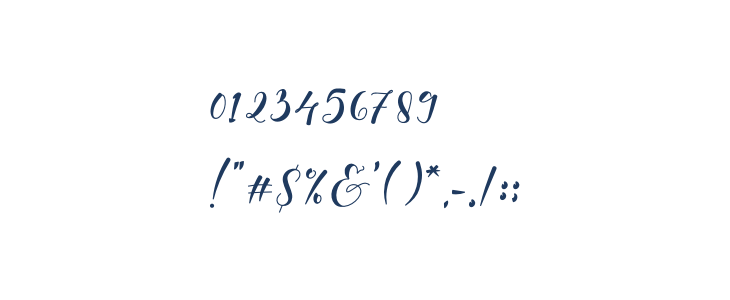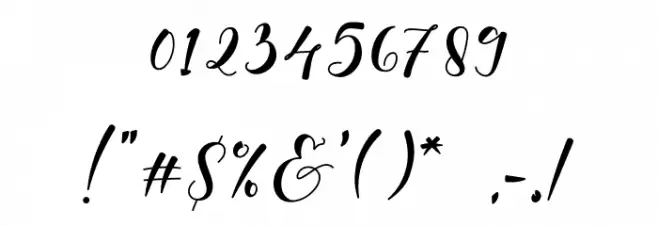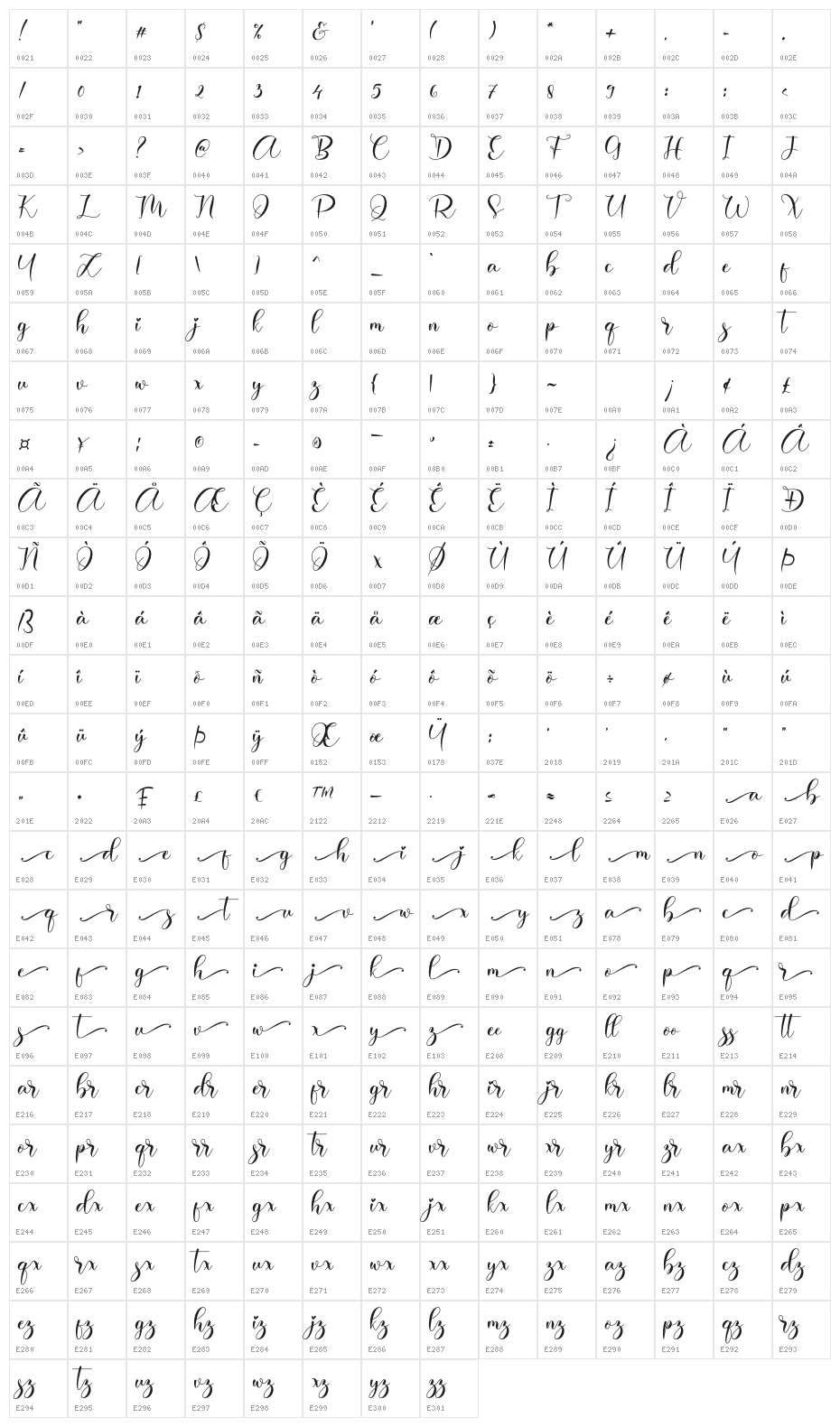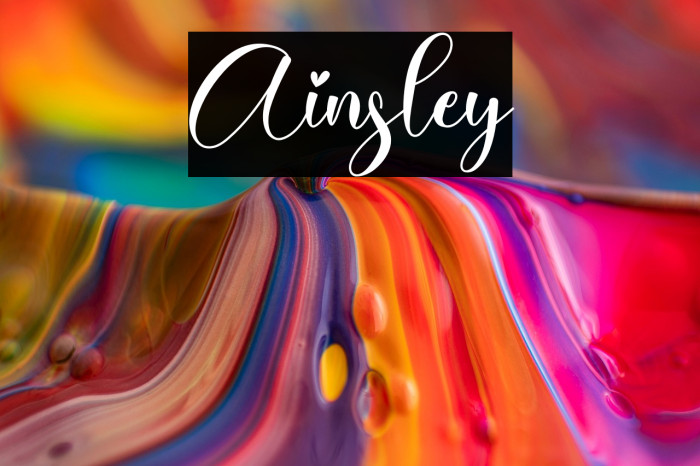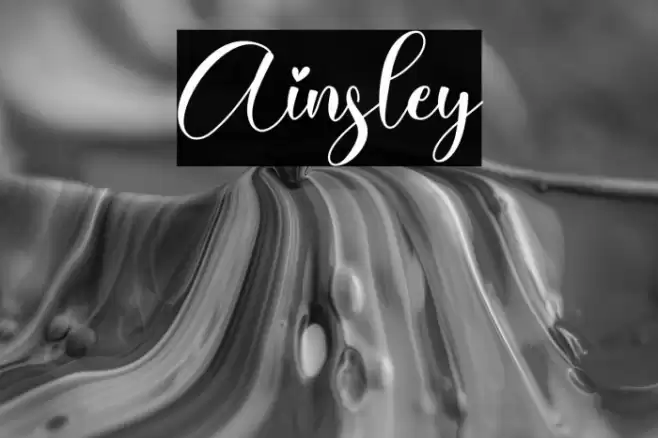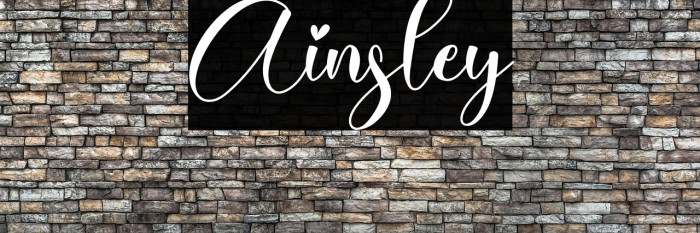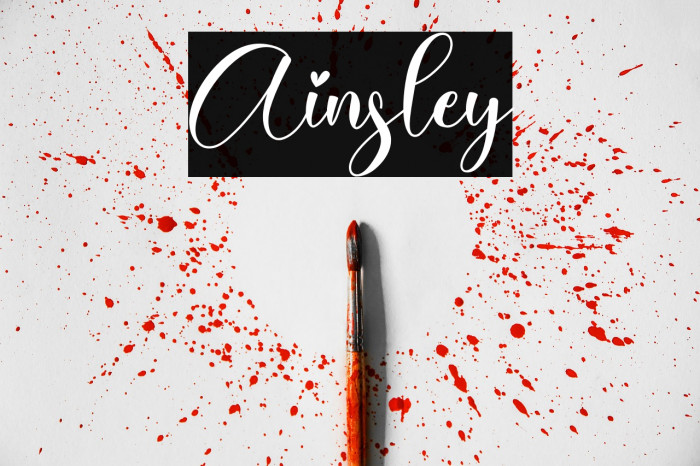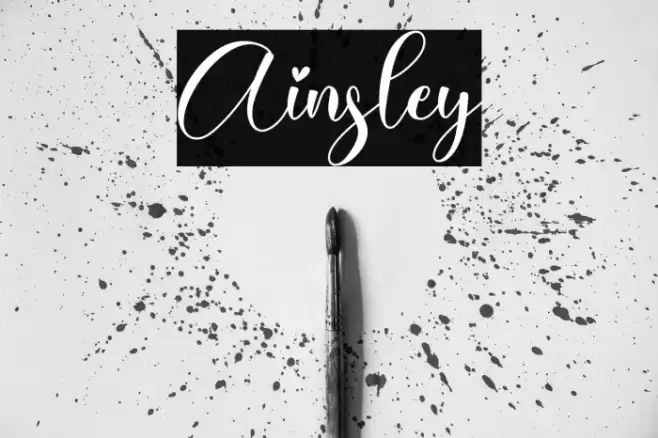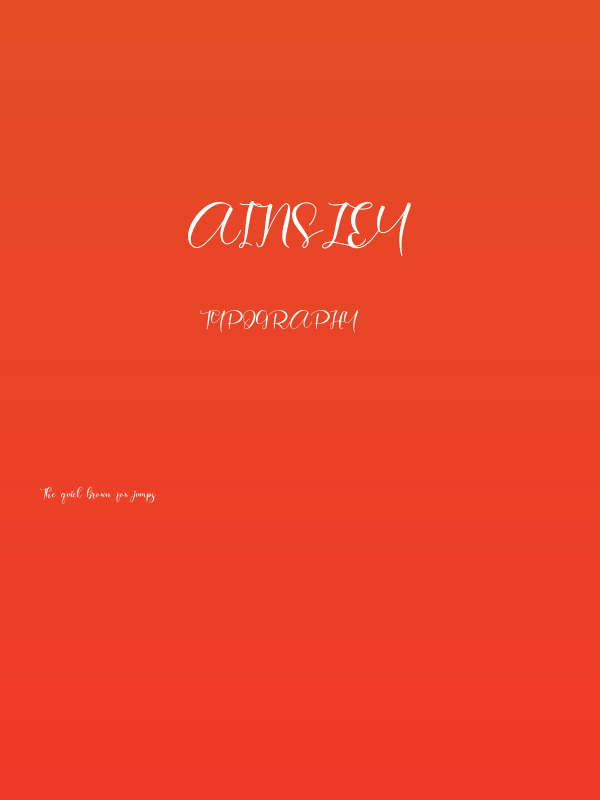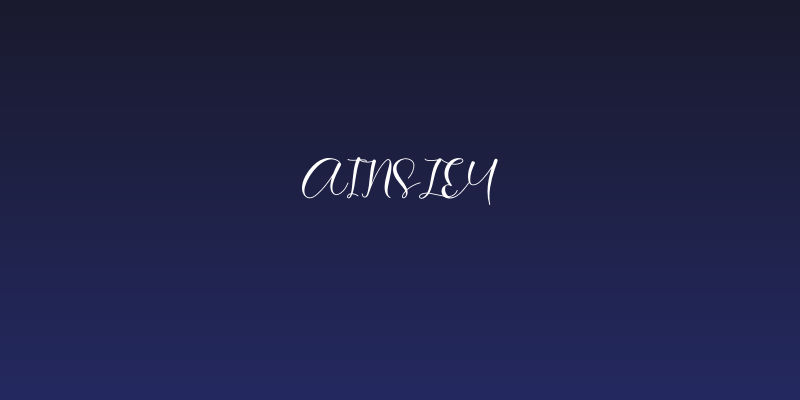
Ainsley Font
Ainsley Description
This font exudes elegance and sophistication with its flowing, cursive style. The uppercase letters are characterized by their sweeping curves and intricate loops, giving a sense of movement and grace. The lowercase letters maintain a consistent flow, with some characters featuring unique flourishes that add a touch of whimsy. The numerals are designed with a similar flair, ensuring a cohesive look throughout. Special characters are thoughtfully crafted to match the overall aesthetic, making this font suitable for a variety of creative applications.
Overall StyleElegant
Use CaseLogos, Invitations, Decorative text
Proposed ProjectsIdeal for wedding invitations, branding projects, greeting cards, and elegant packaging designs.